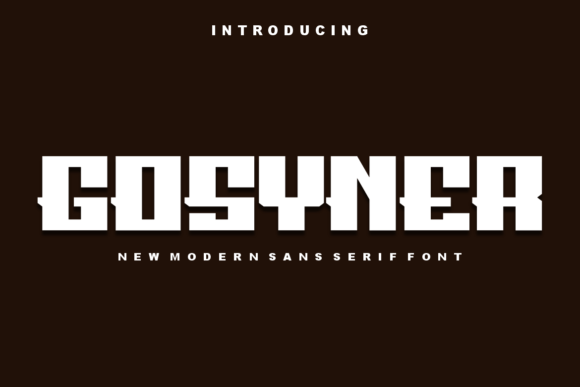
Gosyner Font: Elevate Your Designs with a Modern Sans Serif Style
In the world of typography, fonts play a crucial role in conveying the tone and aesthetic of a design. For those seeking a modern, stylish, and contemporary feel, the Gosyner font is an excellent choice. This clean and sleek sans serif font has been gaining popularity among designers and crafters, and for good reason. In this article, we’ll dive into the features and benefits of Gosyner, exploring why it’s the perfect addition to your typography arsenal.
What is Gosyner Font?
Gosyner is a modern sans serif font characterized by its clean lines, simple curves, and a sleek, minimalist look. Its design is rooted in the principles of modern typography, making it an ideal choice for those seeking a fresh and contemporary aesthetic. The font’s simplicity and clarity ensure that it remains legible across various mediums, from digital screens to print materials.
Key Features of Gosyner Font
- Clean and Simple Design: Gosyner’s design is stripped of unnecessary elements, making it perfect for designs that require a subtle yet sophisticated touch.
- Modern Aesthetic: The font’s modern sans serif style gives it a fresh and contemporary look, ideal for brands and designs seeking to convey innovation and forward-thinking.
- High Legibility: Gosyner’s clear and simple design ensures that it remains highly legible, even at smaller font sizes.
- Versatility: This font is suitable for a wide range of design applications, from logos and branding to digital interfaces and print materials.
Benefits of Using Gosyner Font
So, why should designers and crafters choose Gosyner for their projects? Here are a few compelling reasons:
- Enhances Readability: Gosyner’s clean design and clear lines make it easy to read, reducing eye strain and improving the overall user experience.
- Timeless Appeal: Unlike trendy fonts that may quickly become outdated, Gosyner’s classic sans serif design ensures it remains timeless and versatile.
- Boosts Brand Identity: For brands looking to convey a sense of modernity and sophistication, Gosyner is an excellent choice. Its sleek design can help elevate a brand’s visual identity.
- Easy to Pair: Gosyner’s simplicity makes it easy to pair with other fonts, allowing designers to create visually appealing and harmonious typography combinations.
Using Gosyner Font in Your Designs
Integrating Gosyner into your design workflow is straightforward. Here are a few tips to get you started:
- Digital Projects: Use Gosyner for website designs, mobile apps, and digital interfaces to give your project a modern and clean look.
- Print Materials: Gosyner is also suitable for print materials such as brochures, posters, and business cards, where its clarity and legibility shine.
- Branding and Logos: Consider Gosyner for logo designs and brand identities that require a sleek and contemporary feel.
In conclusion, Gosyner font offers a perfect blend of modernity, simplicity, and legibility, making it an excellent choice for designers and crafters seeking a stylish and contemporary feel in their designs. Its versatility, timeless appeal, and ease of use make it a valuable addition to any typography collection. Whether you’re working on digital projects, print materials, or brand identities, Gosyner is sure to elevate your designs to the next level.
- What type of font is Gosyner? Gosyner is a modern sans serif font.
- Is Gosyner suitable for body text? Yes, Gosyner’s high legibility makes it suitable for body text in both digital and print materials.